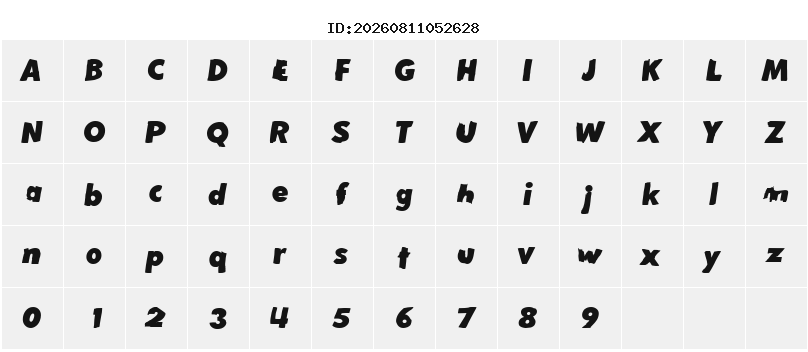
Rough House Extra Bold Italic Preview
• Font Name: Rough House Extra Bold Italic
• Full Font Name: Rough House Extra Bold Italic
About Rough House Extra Bold Italic.ttf
Rough House Extra Bold Italic.ttf is a modern, elegant sans-serif font designed for ultimate readability and visual harmony. Perfect for branding, headlines, web design, and print materials.